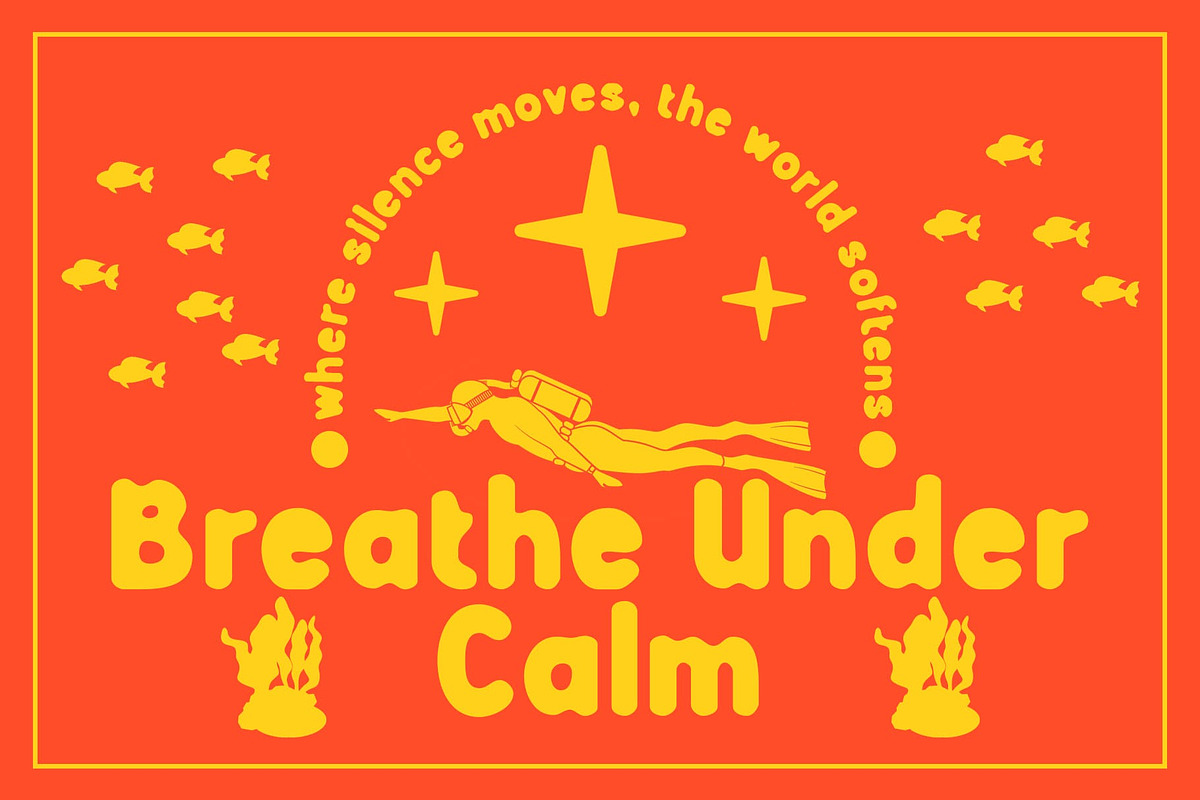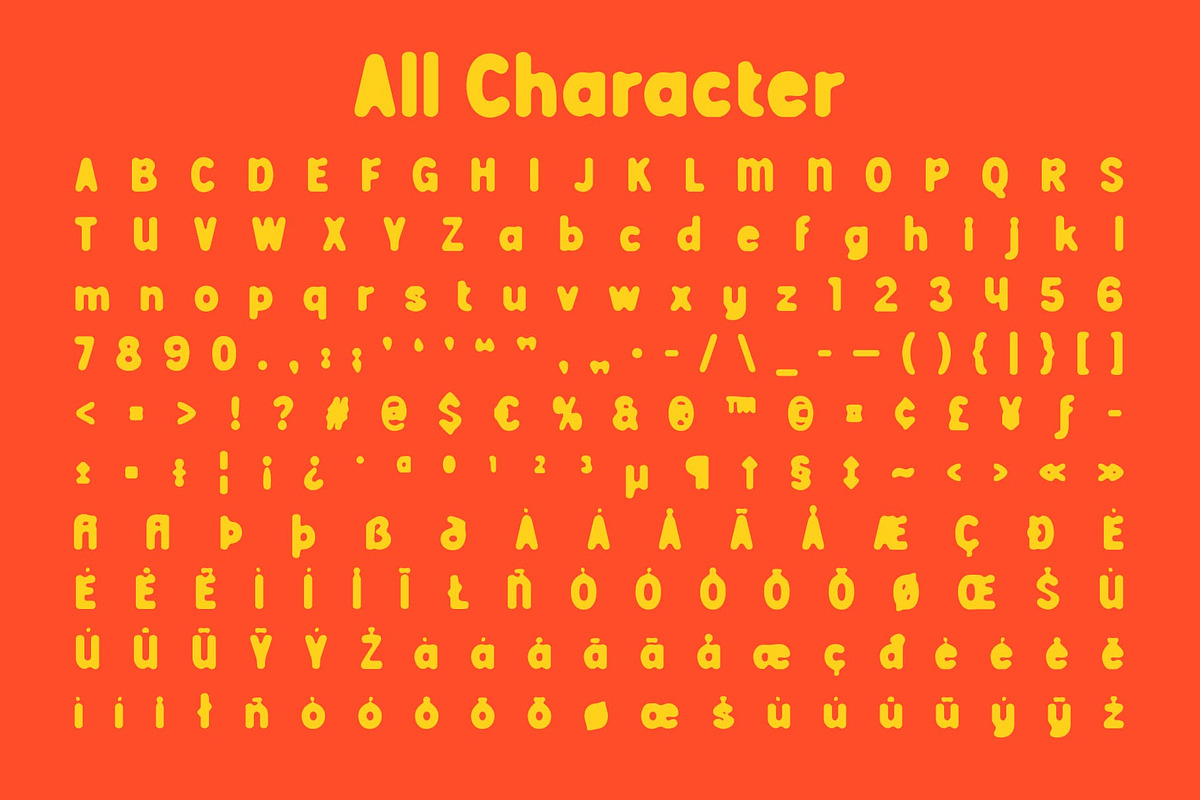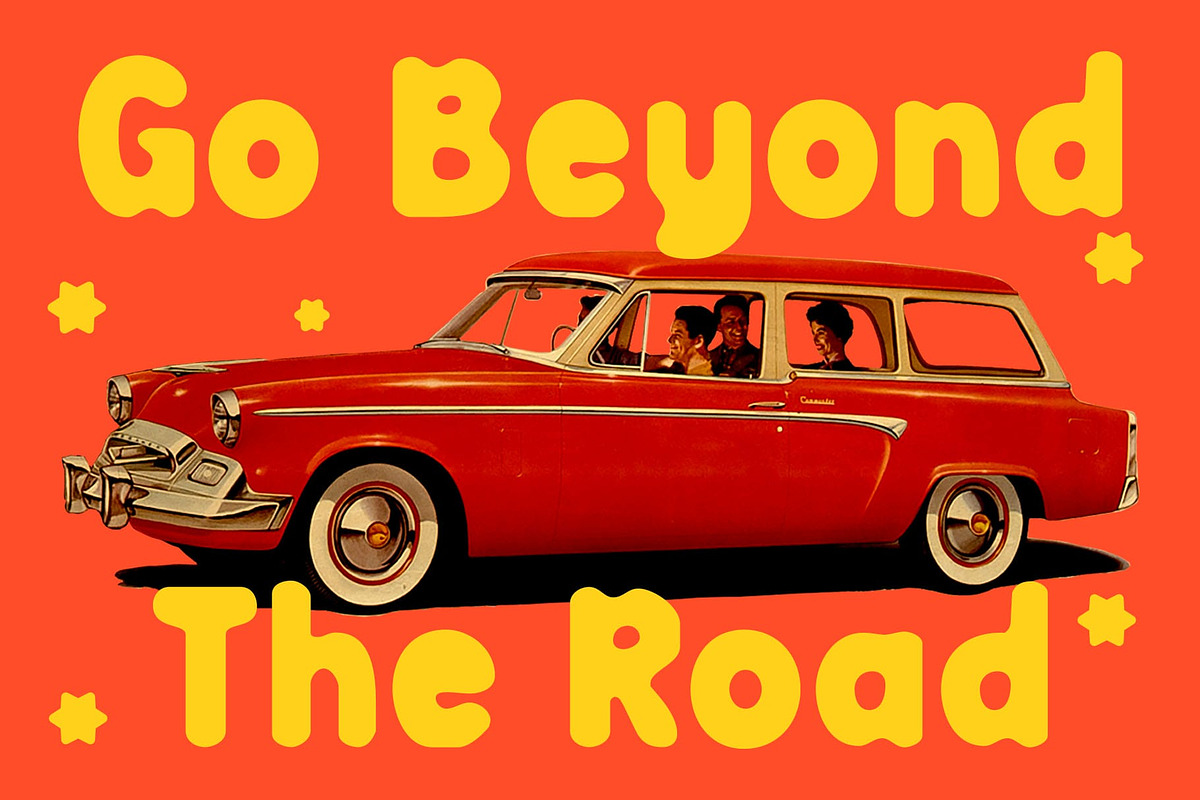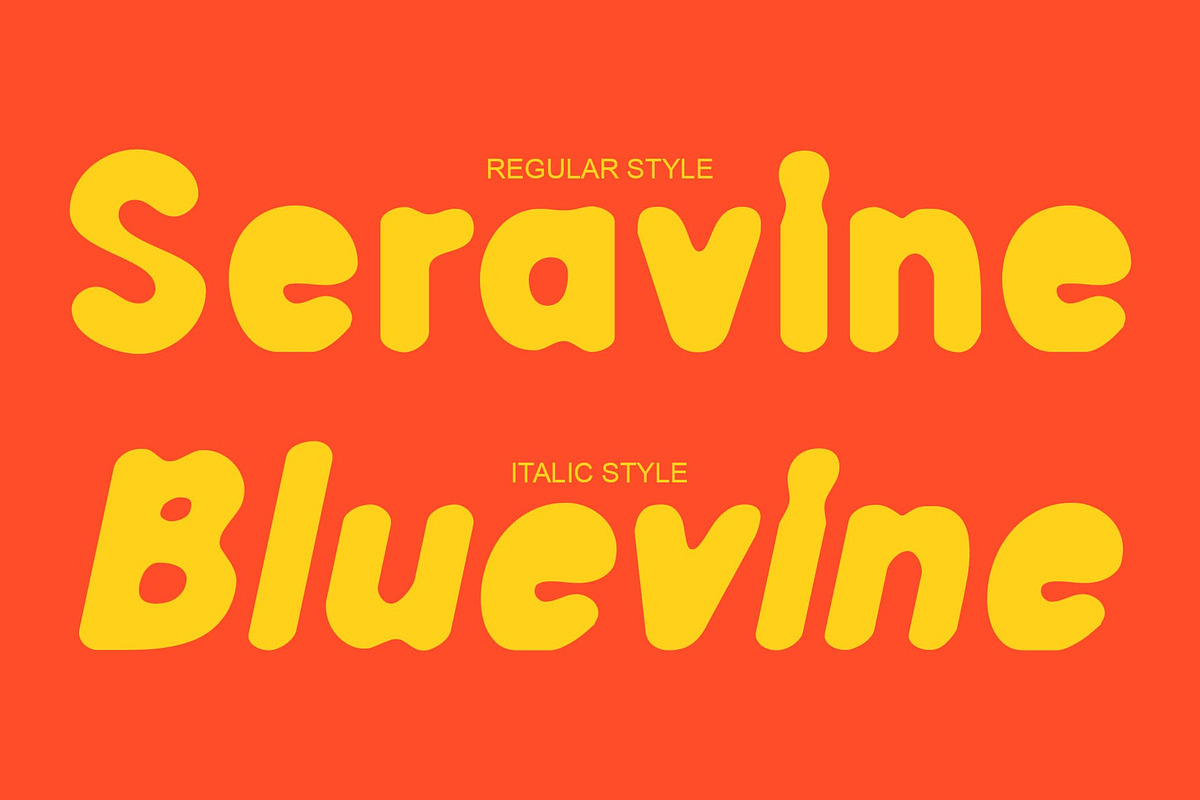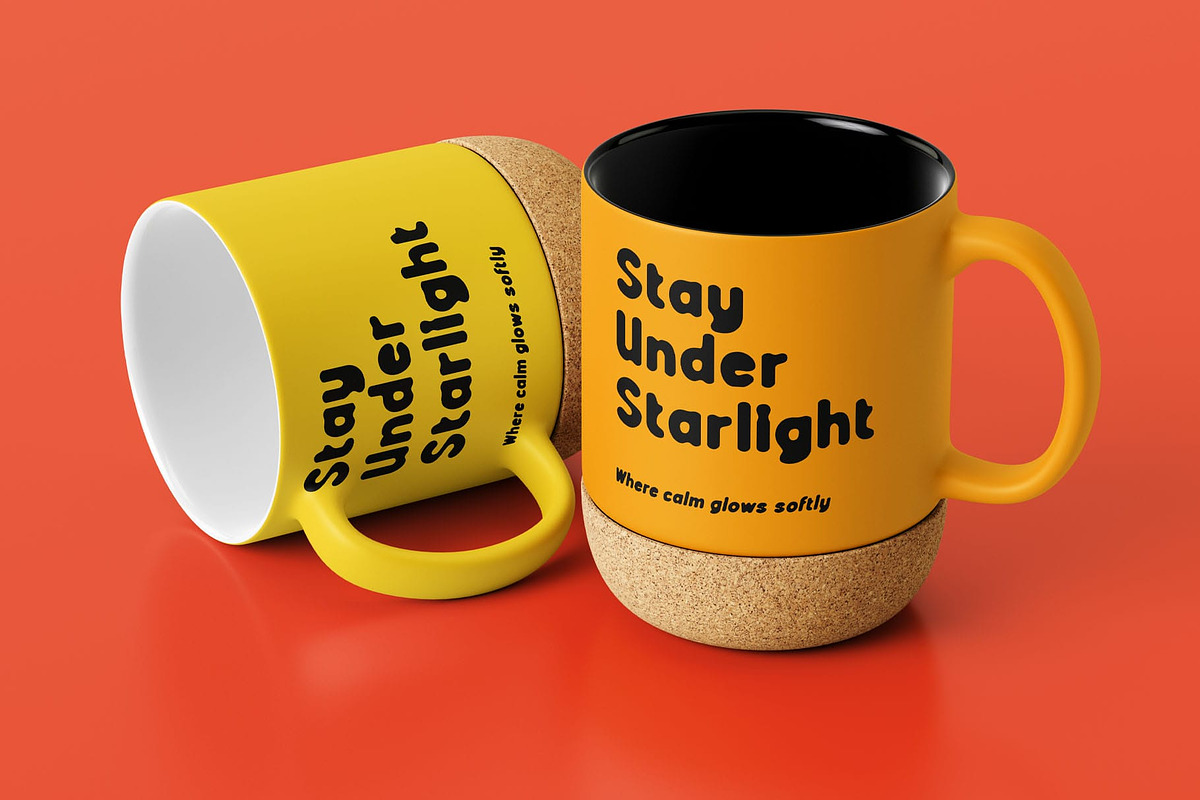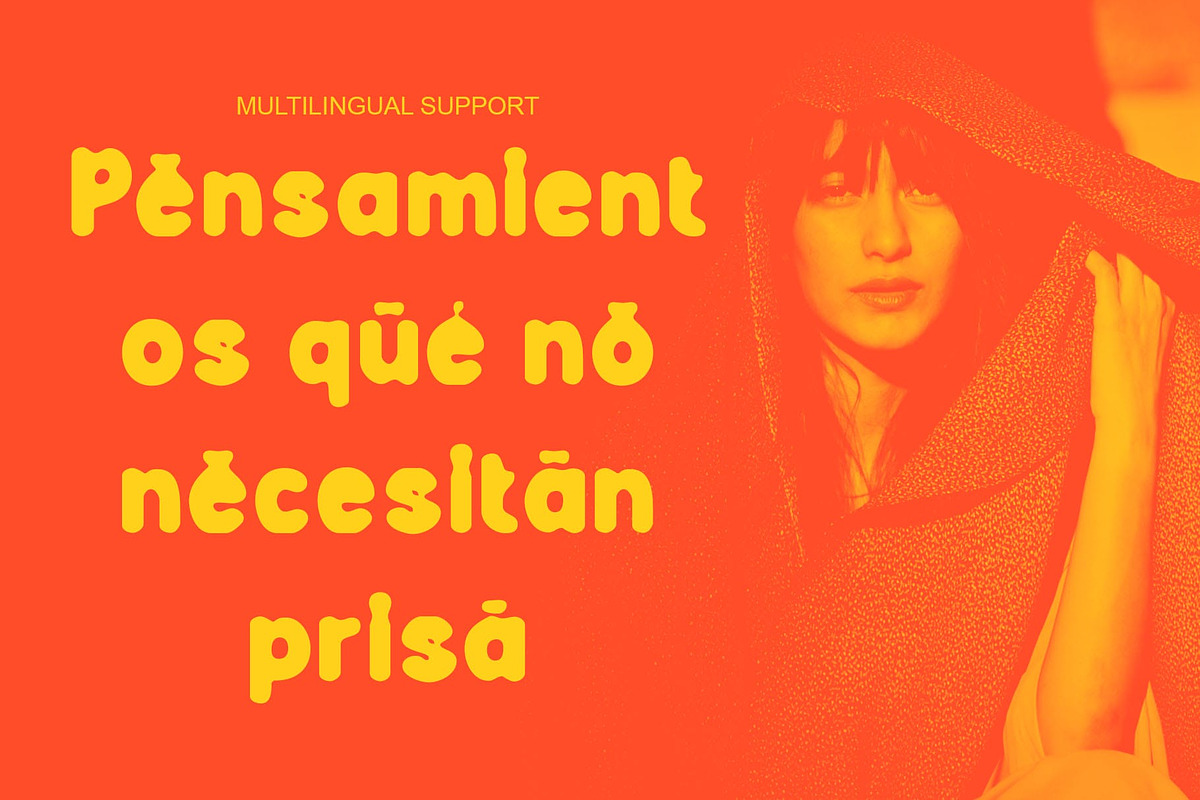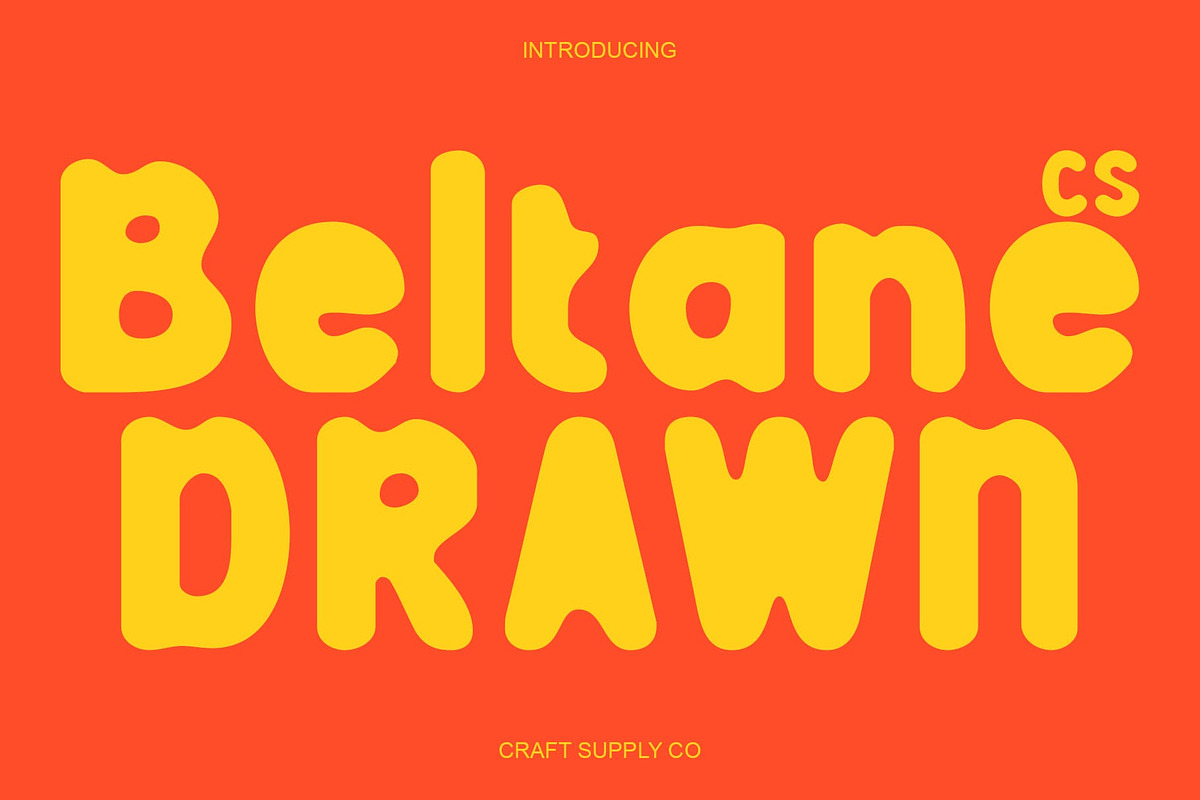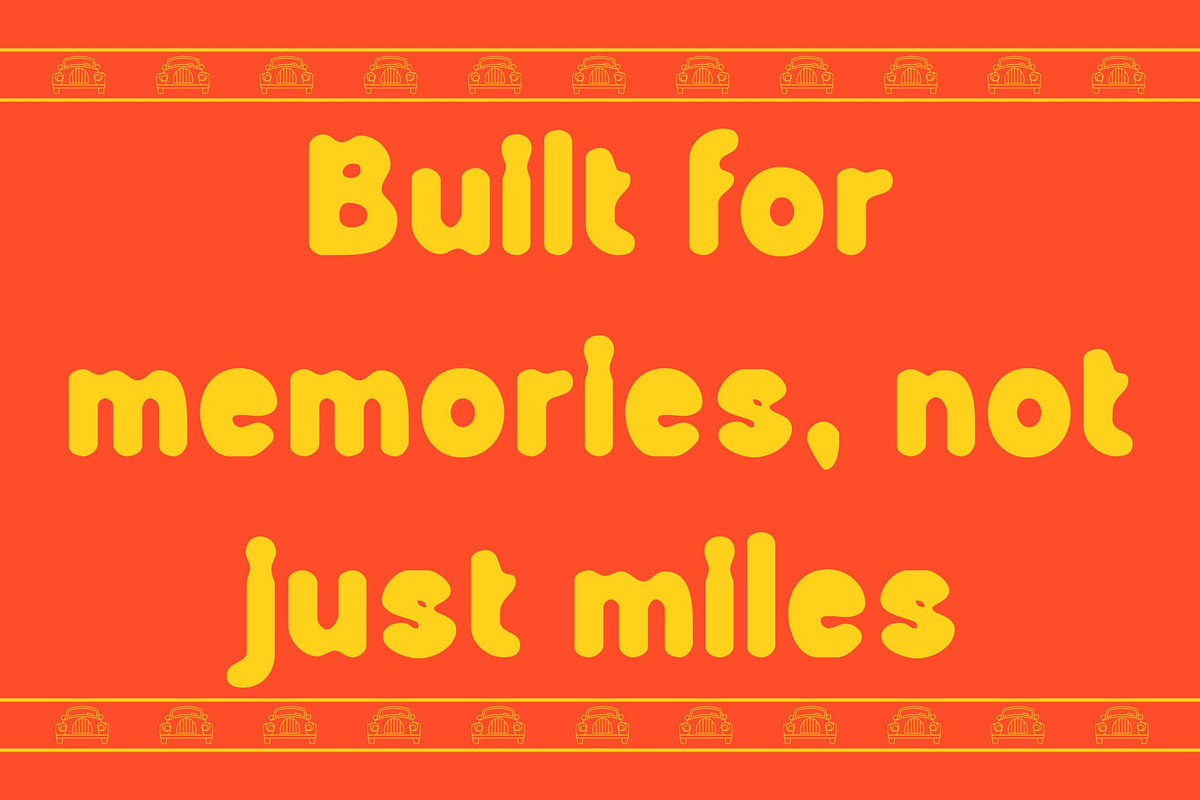
CS Beltane Drawn
CS Beltane Drawn – Sans Serif Display Font: Bold Modernity with a Drawn Texture and Handcrafted Spirit
Striking Design with Confident Presence This is a bold sans serif display font designed to make a statement. With its strong, modern shapes and clean structure, it commands attention while maintaining a sleek and contemporary appeal. Each letter is built for impact, ensuring your design stands out with clarity and power.
Hand-Drawn Texture for Artistic Expression The drawn handmade touch introduces a layer of creative imperfection, adding warmth and individuality to the font’s modern form. This texture enhances its visual energy, making it feel more dynamic, personal, and full of character perfect for designers who value both precision and creativity.
Contemporary Edge with Expressive Style This font bridges the gap between modern design and artistic craftsmanship. Its boldness captures a forward-thinking aesthetic, while the drawn effect softens its tone, giving it a more approachable and expressive edge that shines in visual storytelling.
Perfect for Headlines, Branding, and Posters Ideal for headlines, branding, posters, and creative layouts, this font thrives in bold visual compositions. It delivers a contemporary, lively, and expressive look, ensuring every design feels fresh, captivating, and unmistakably unique.
- CS Beltane Drawn Regular
- CS Beltane Drawn Italic